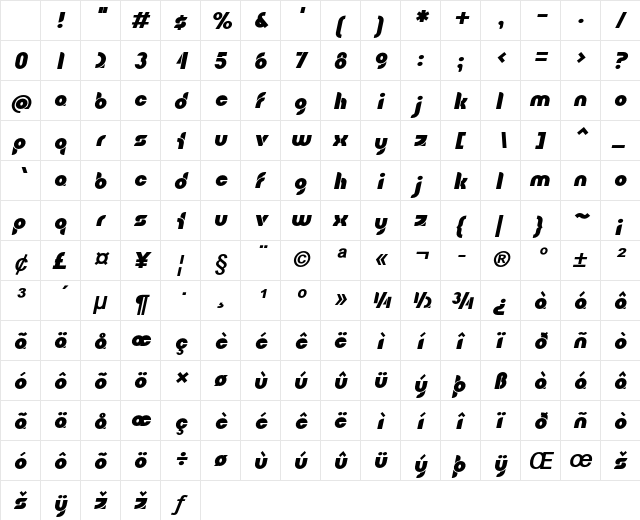
Carda is a composed and adaptable typeface that performs quietly and consistently across a wide range of design contexts. The slanted form adds forward momentum and visual energy. Its bold stroke weight gives it real presence on the page.